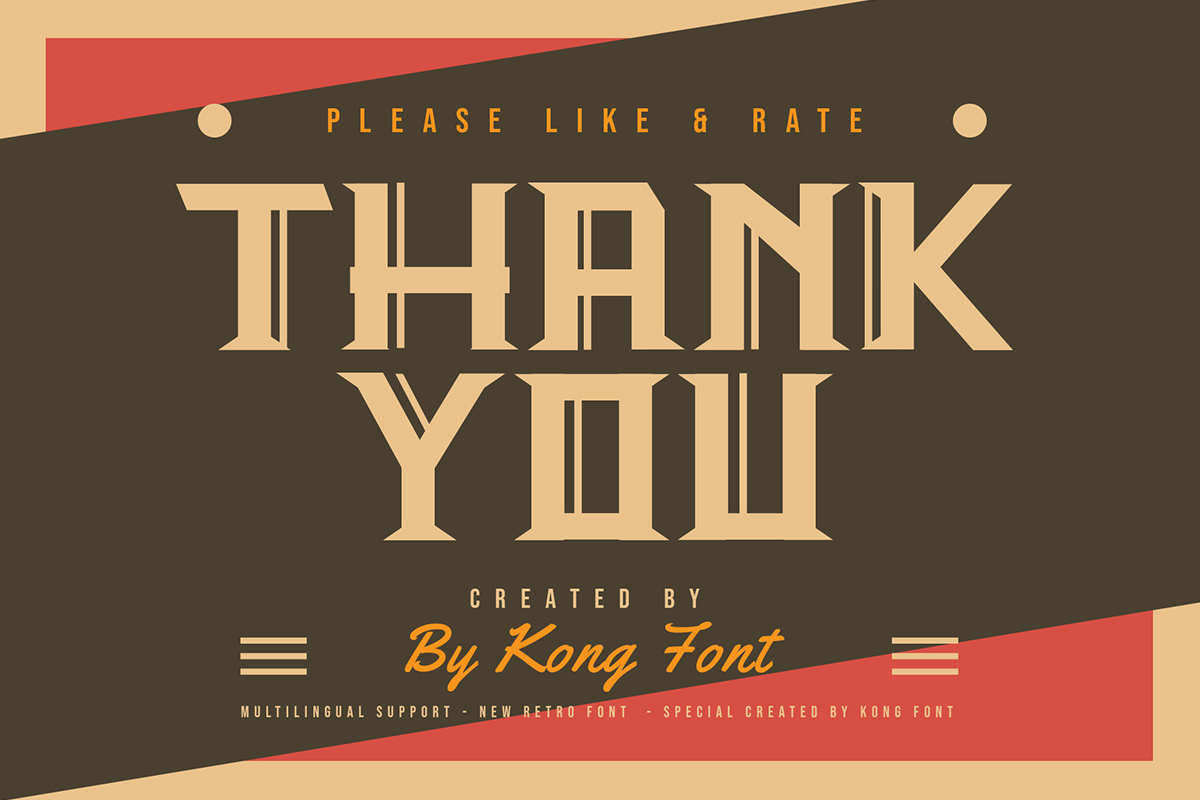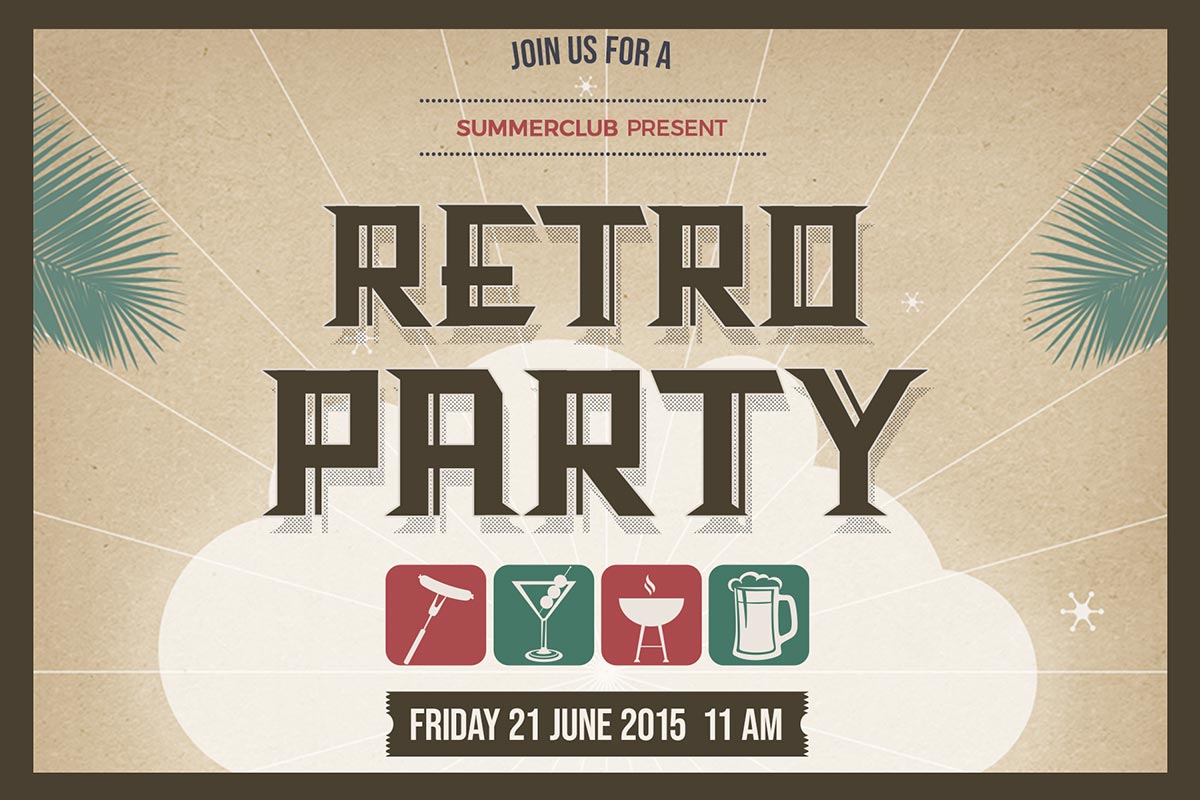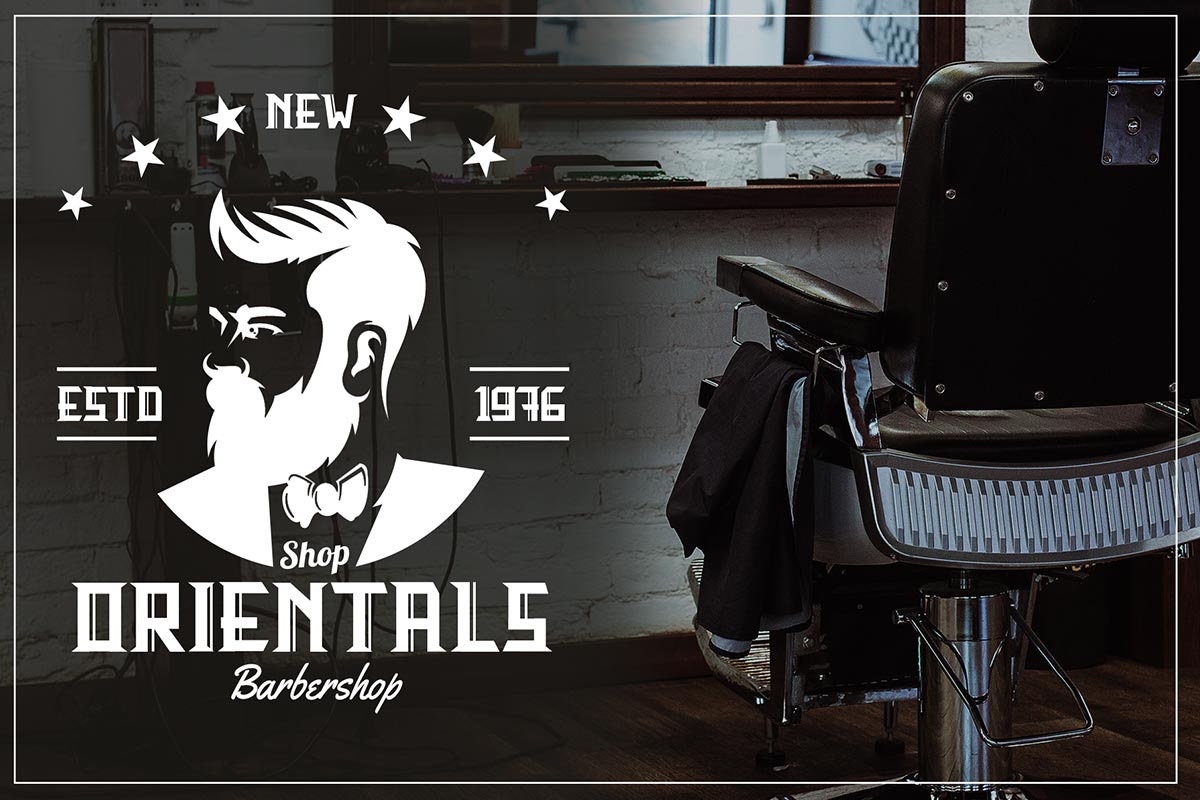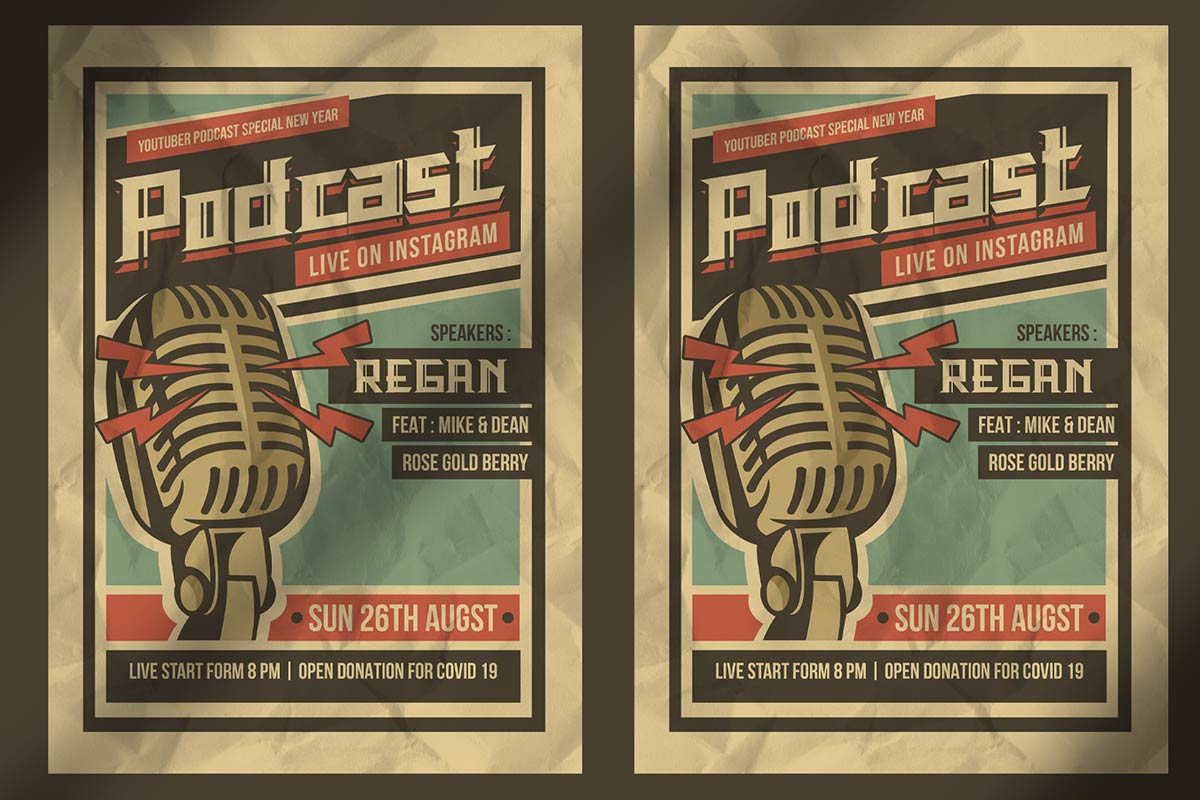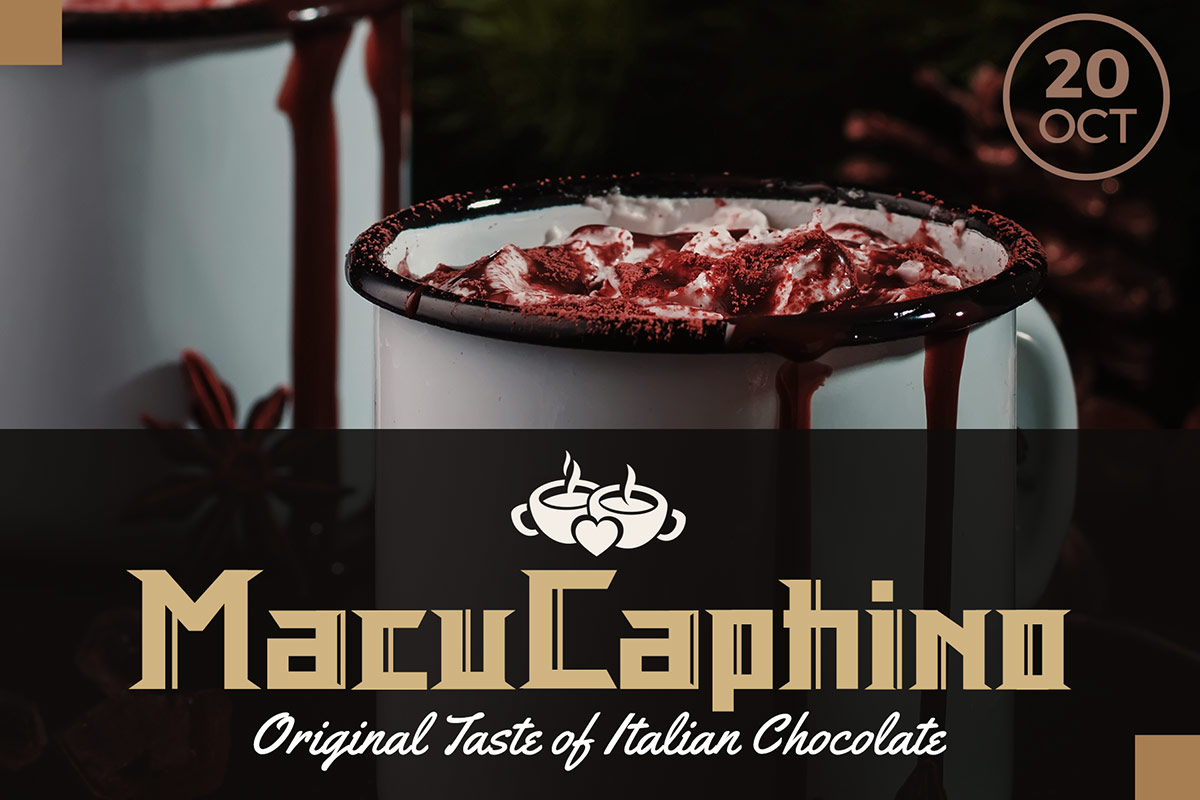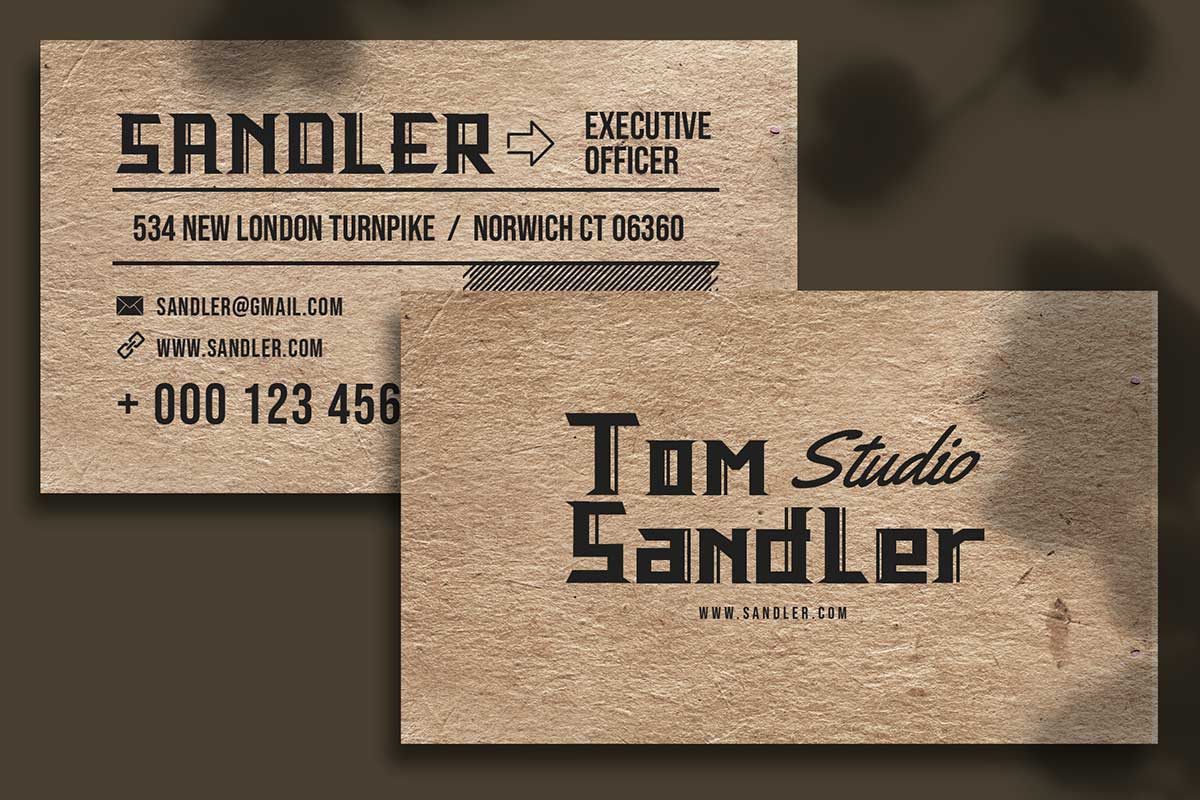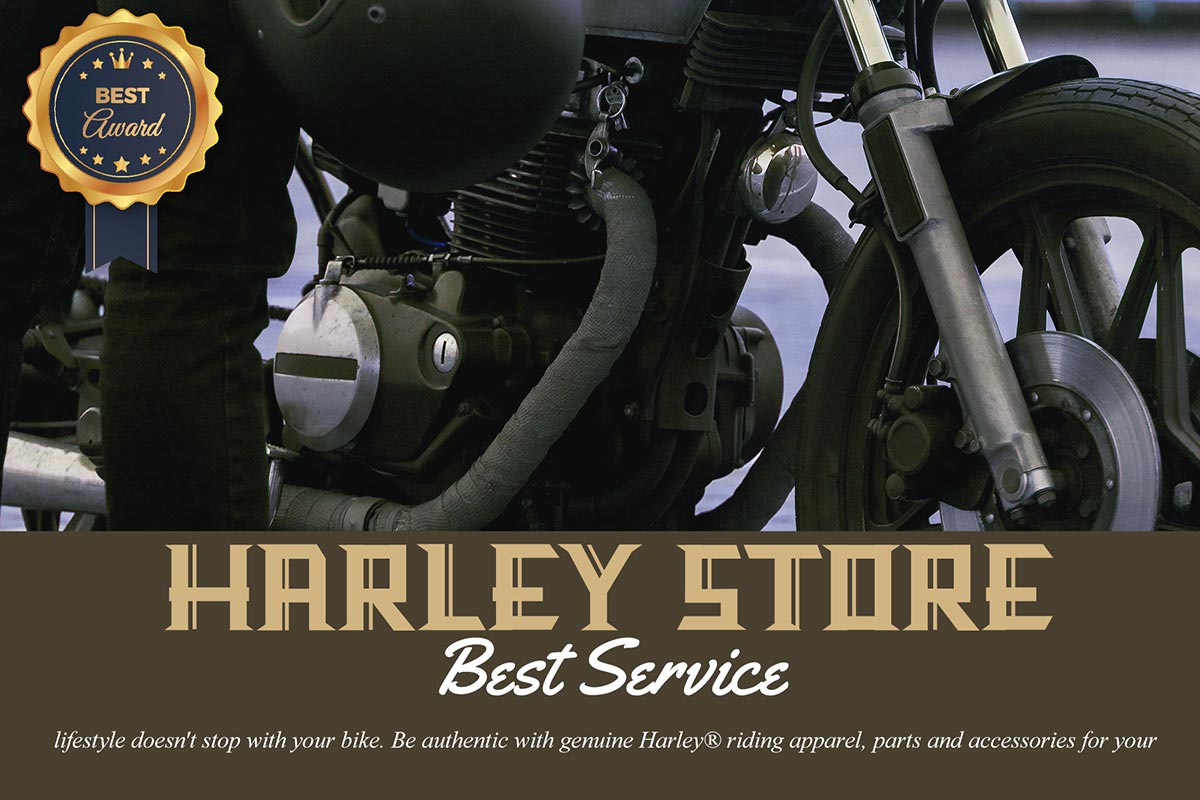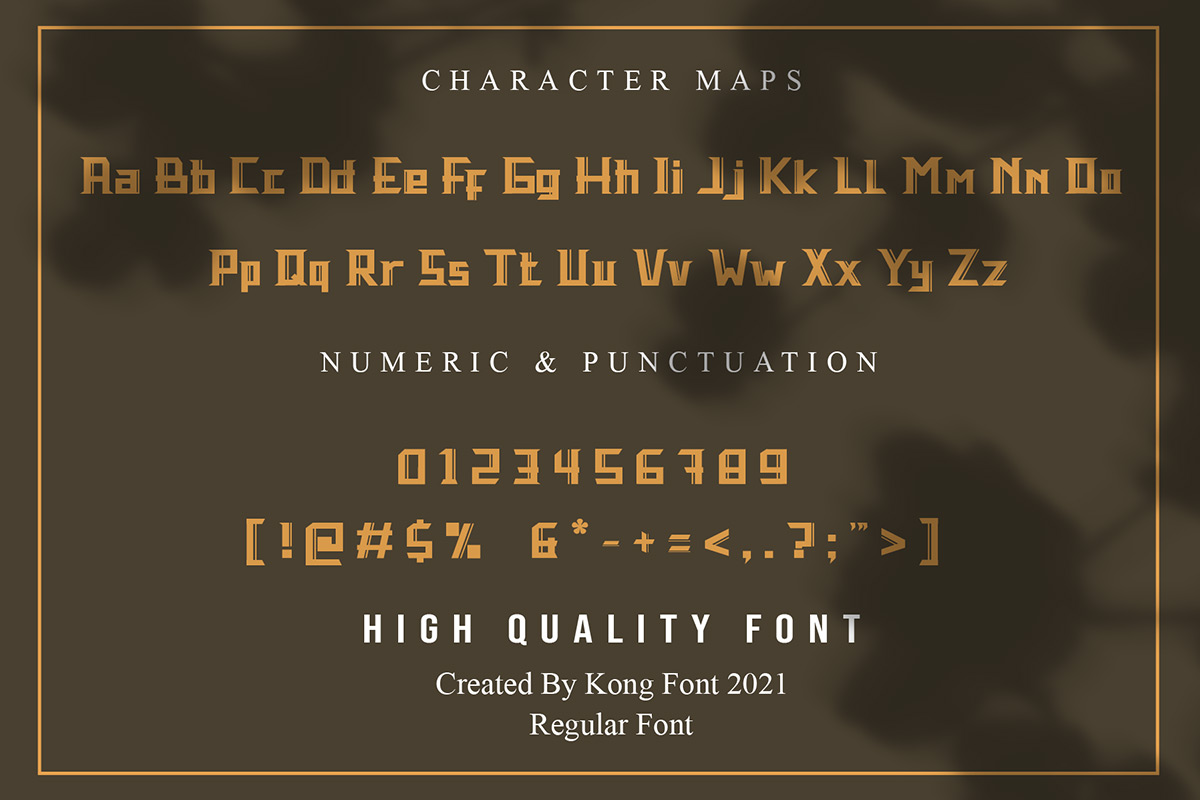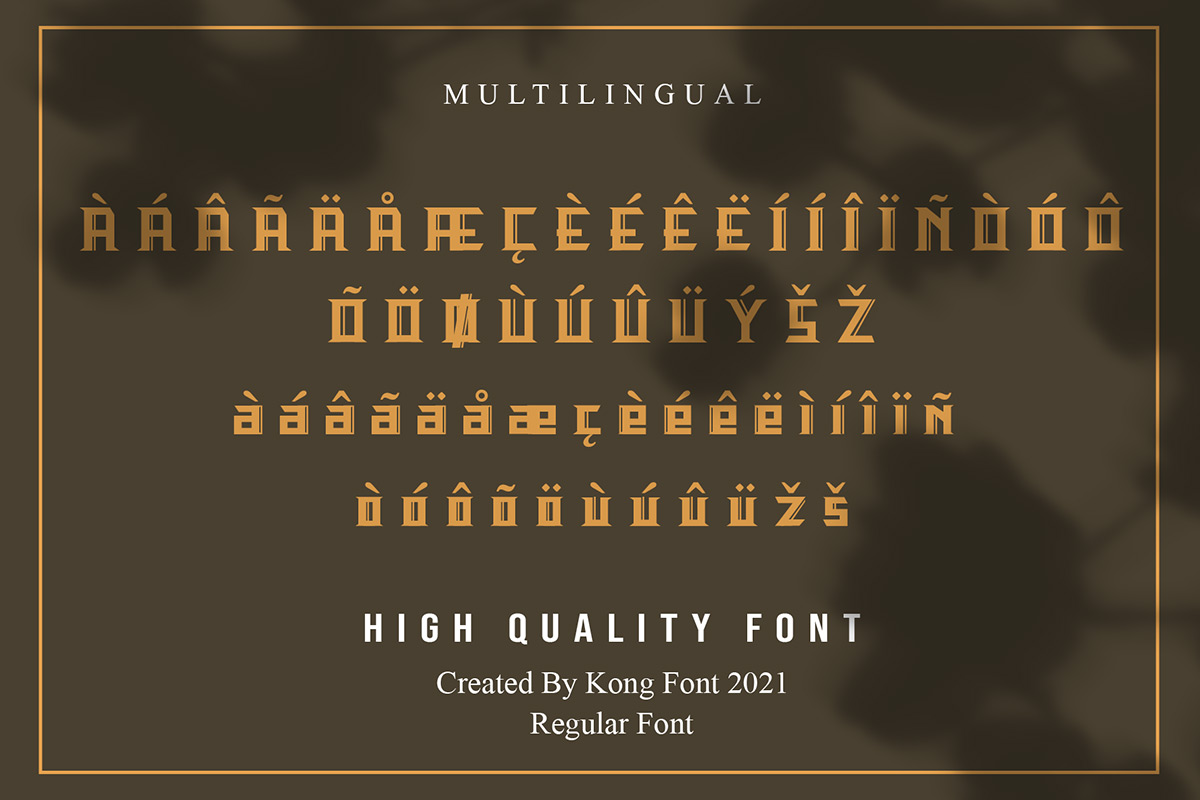
Taraka Display Font Taraka Retro Font provides a new look that is different from the general display fonts. This font carries a vintage, simple, and upright feel. It can also use as a bold and modern font. Taraka Retro Font is legible. Taraka Retro Font has many matches when combined with the product. Fashion brand tags such as clothing will work well with this typeface. There is no need to add excessive pictures and ornaments because the Taraka Retro Font has presented its identity where a simple yet classic impression radiates. Taraka Retro Font is a typeface that can use as digital fonts and print fonts. This font can use as a title that appears first in intro videos that catch the viewer's attention at a first impression. Posters and magazine cover work especially well when using the Taraka Retro Font. This is because this font can be seen clearly and can be distinguished from every letter. Our display fonts collection is compatible for use as; Figma Fonts, Canva Fonts, Freepik Fonts, and Adobe Fonts. They also work as Windows Fonts and Apple Fonts. For your social media needs, you can use and install fonts in our Serif font collection to use as Instagram Fonts, Facebook Fonts, and Twitter Fonts.